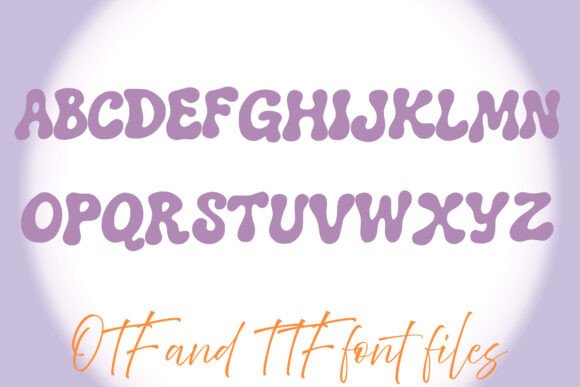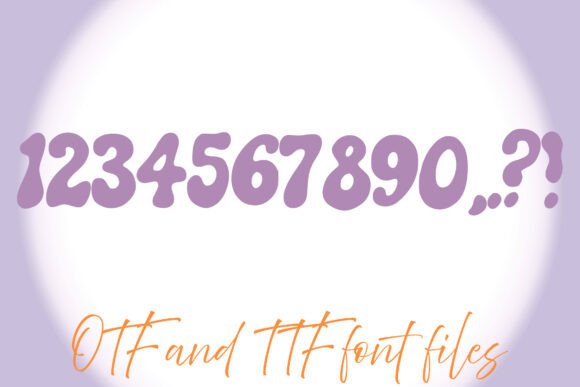
Hippy 60s Font – Free Download
Introduction to Hippy 60s Font
Hippy Font is a groovy and free-spirited typeface inspired by the playful vibes of the 1960s and ’70s.
With its bubbly, wobbly shapes and retro energy, it’s perfect for throwback posters, peace-themed graphics, music festival designs, and anything that needs a funky, feel-good twist It’s all about good vibes and bold expression.
Key Features of Hippy 60s Font